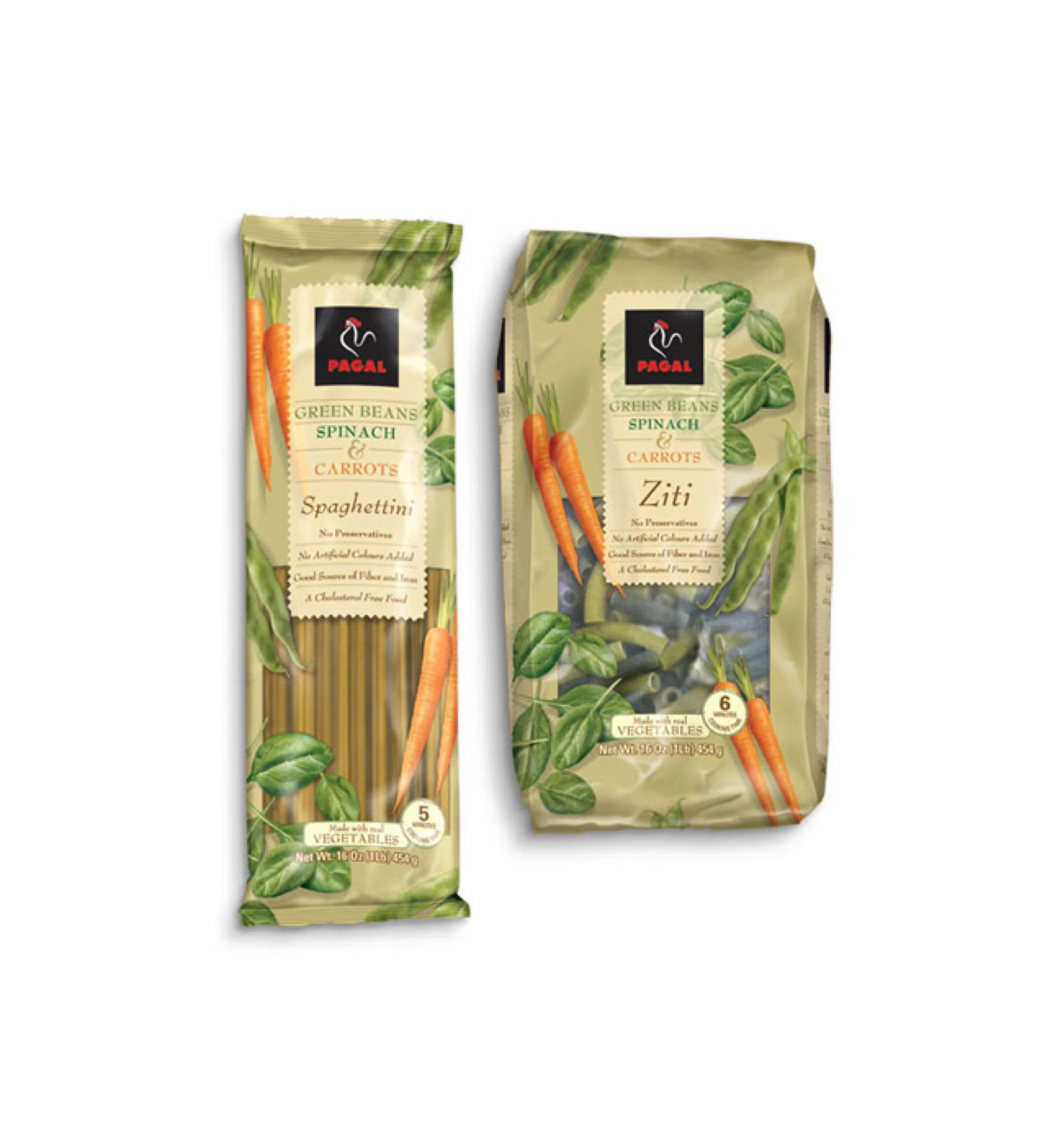
Two distinct pasta packages from the Pagal brand sit side by side, showcasing a Spaghetti variety on the left and Ziti on the right. Both bags feature an earthy olive-green base decorated with realistic illustrations of orange carrots, leafy spinach, and green bean pods. The brand name appears in white text within a black square at the top of each label, while the product names are rendered in elegant serif fonts below the vegetable ingredients list.
The packaging design cleverly integrates photographic elements with botanical illustrations, creating a fresh, farm-to-table aesthetic that stands out on shelves. Transparent windows reveal the actual pasta shapes inside, allowing customers to verify the texture and color before purchase. Designers studying this composition will appreciate how the natural color palette reinforces the health-conscious messaging without feeling overly clinical. You can grab the full-resolution file for free if you need to examine the finer typographic details or color values.
Food photographers might study the lighting setup used here, which creates soft shadows while maintaining vibrant vegetable colors. Packaging students could analyze the hierarchy between the logo, ingredient callouts, and nutritional badges to understand effective information architecture. Brand developers working on organic or wellness products would find this reference useful for exploring how illustration styles communicate freshness and quality.